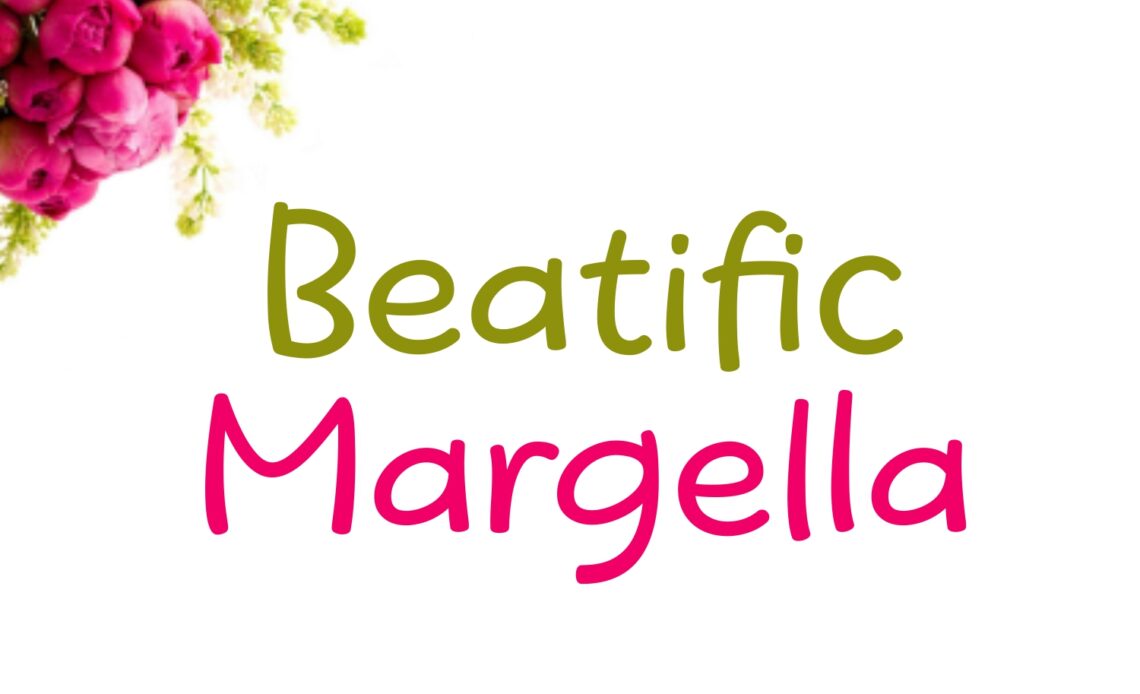
Embrace the charm of Beatific Margella Font, a captivating script font crafted by Situjuh, designed to infuse your projects with a touch of whimsical delight. This enchanting font exudes a sense of playfulness and warmth, making it an ideal choice for a wide spectrum of design ventures.
Dive into the world of Beatific Margella, where letters dance and flow with a graceful rhythm. Its meticulously crafted curves and delicate swashes create an irresistible allure that will leave your audience spellbound. Whether you're designing logos, invitations, social media graphics, or any other creative endeavor, this font will effortlessly elevate your designs to new heights of visual appeal.
With Beatific Margella, you'll discover endless possibilities to express your creativity. Its remarkable legibility ensures that your message will always be communicated with clarity and impact. Let this font carry your words with elegance and charm, capturing the attention of your audience and leaving a lasting impression.
Unlock the power of Beatific Margella and transform your designs into captivating masterpieces. Embrace the beauty of handwritten charm and let your creativity soar. Download Beatific Margella today and embark on a journey of artistic exploration, creating designs that captivate and inspire.